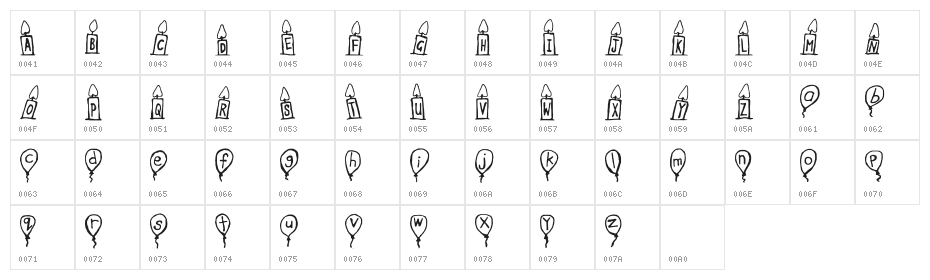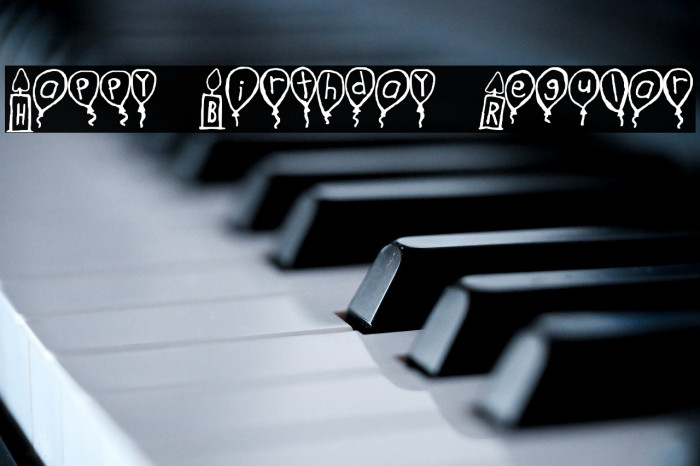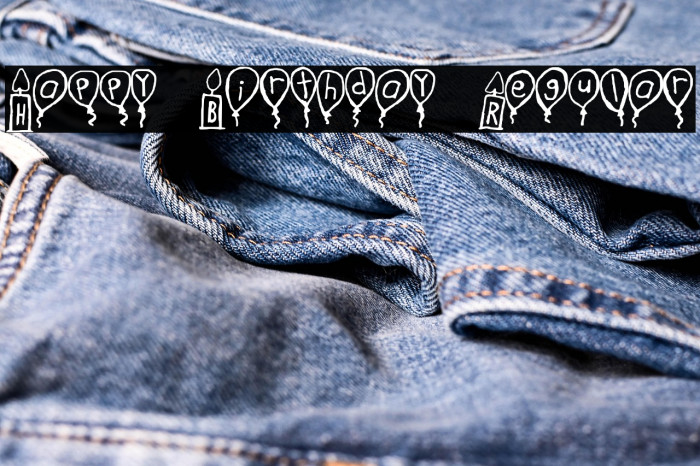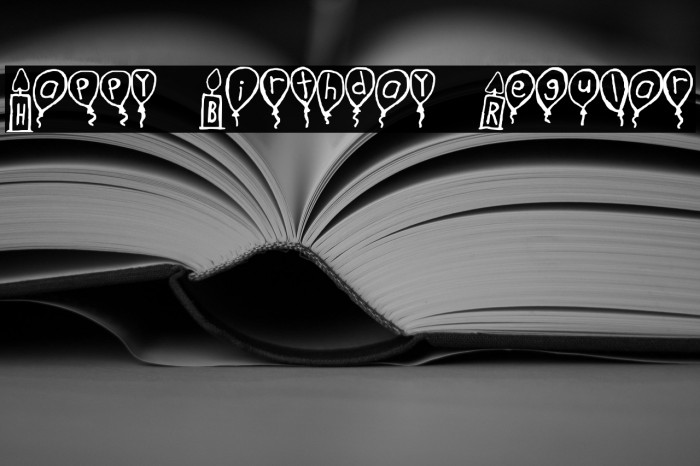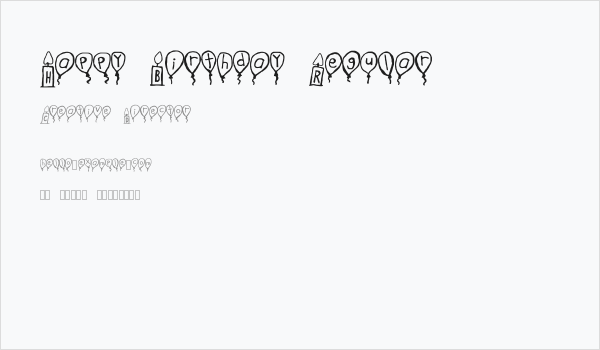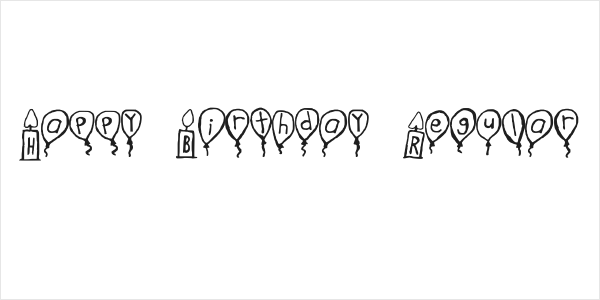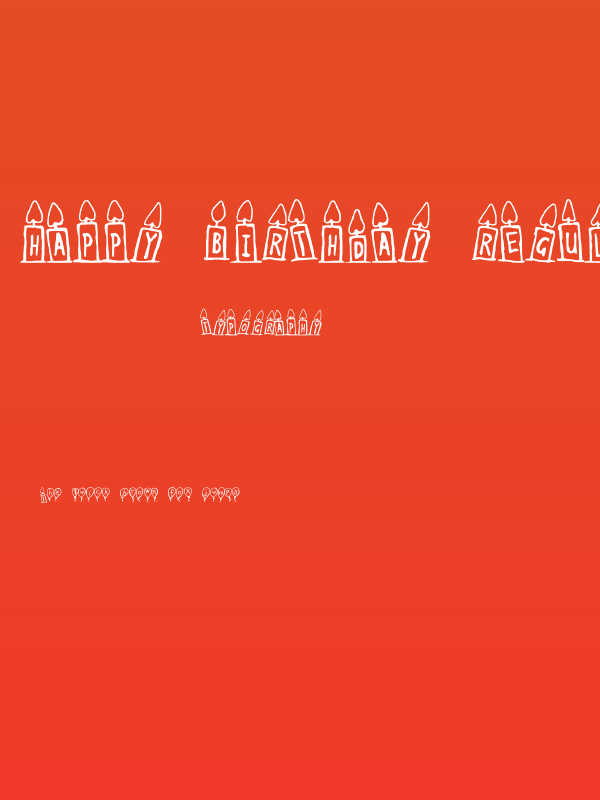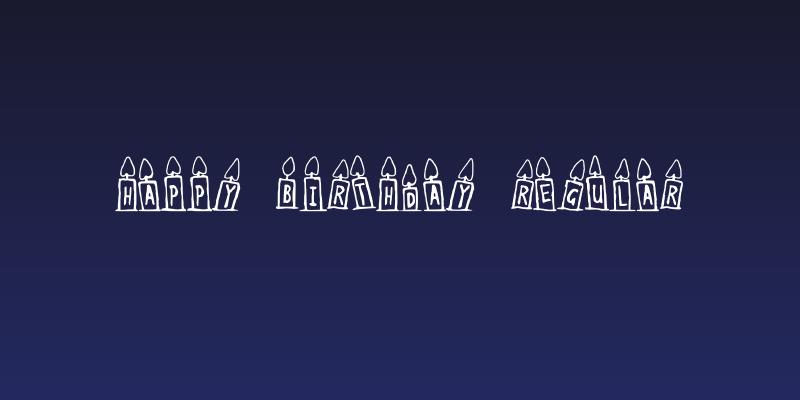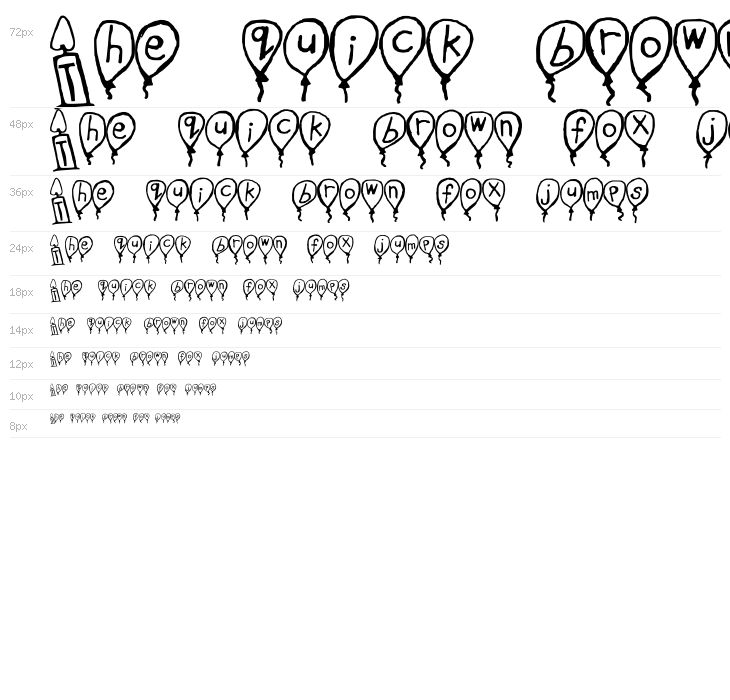
Happy Birthday Regular Font
Happy Birthday Regular Description
This playful and whimsical font features uppercase letters designed as birthday candles and lowercase letters as balloons, each with a unique, hand-drawn style. The uppercase letters are enclosed in rectangular candle shapes with a flame on top, while the lowercase letters are encased in balloon shapes with a string at the bottom. The font exudes a festive and celebratory vibe, perfect for adding a touch of fun to any project. The strokes are uneven, giving it a casual, handwritten feel. The characters are bold and stand out, making them ideal for attention-grabbing designs.
| Proposed Projects | Ideal for birthday invitations, party banners, greeting cards, and festive event posters. |